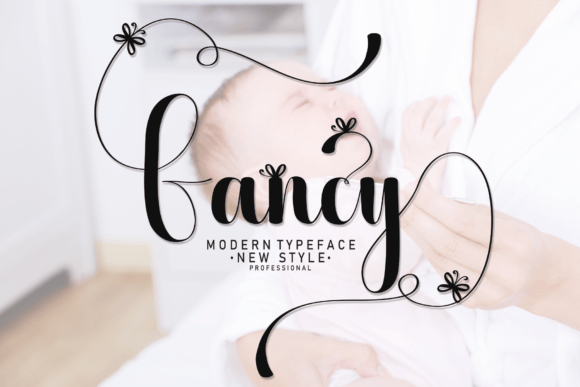
Behold the Exquisite Fancy Font: A Stroke of Elegance for Your Creative Endeavors
In a world teeming with digital creations, your designs yearn for a touch of individuality, a whisper of personality that sets them apart. Enter Fancy Font, a flowing handwritten masterpiece that weaves a tapestry of timeless beauty into each letterform. Its elegant curves and graceful strokes evoke a sense of sophistication that will elevate your projects to new heights.
Unicorns and rainbows dance within the depths of Fancy Font, promising a touch of whimsy to your designs. The characters seem to flow from the nib of a skilled calligrapher, each one a unique work of art. Whether you're designing wedding invitations, crafting social media posts, or creating eye-catching logos, Fancy Font will infuse your creations with an undeniable charm.
Love at first sight awaits as you immerse yourself in the world of Fancy Font. Its incredibly distinct style will captivate your senses, leaving you spellbound by its enchanting allure. With Fancy Font as your creative companion, you'll discover a new realm of design possibilities, where imagination reigns supreme and beauty knows no bounds.
Step into the spotlight and let Fancy Font transform your creative vision into a breathtaking reality. Its versatility knows no limits, adapting seamlessly to a symphony of design projects. From delicate branding elements to captivating posters, Fancy Font will elevate your designs to new heights.